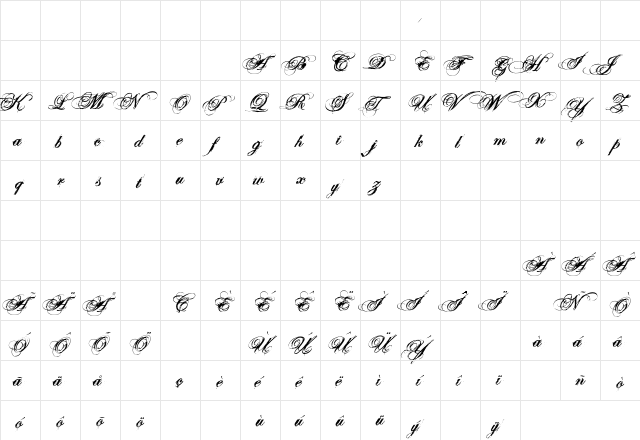
SWEETCORRECTION ROTH Regular
Design Context for SWEETCORRECTION ROTH Typeface
SWEETCORRECTION ROTH is a composed and adaptable typeface that performs quietly and consistently across a wide range of design contexts.